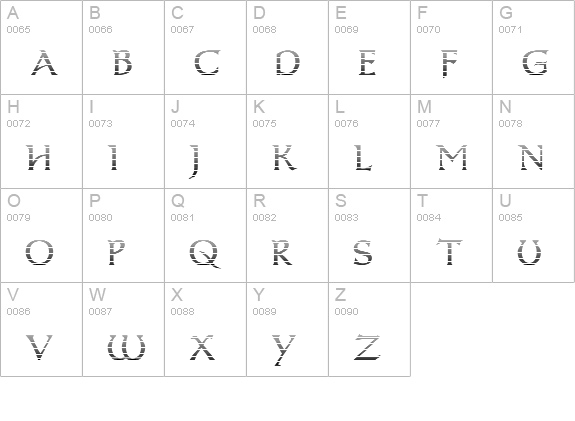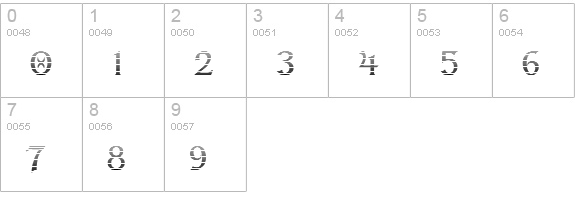
Dumbledor 1 Cut Down Font Details
Dumbledor 1 Cut Down font is a captivating and whimsical typeface that exudes a sense of charm and playfulness. With its unique cut-down style, this font is perfect for adding a touch of creativity to your designs. The intricate details and elegant curves of each letter make Dumbledor 1 Cut Down font a standout choice for a wide range of projects. Best of all, this font is available for free download at FontsMarket.com, making it easily accessible to all designers looking to enhance their work with a touch of magic. Whether you're designing a poster, invitation, logo, or any other creative project, Dumbledor 1 Cut Down font is sure to bring a sense of whimsy and style to your designs. Download it today and let your imagination run wild!